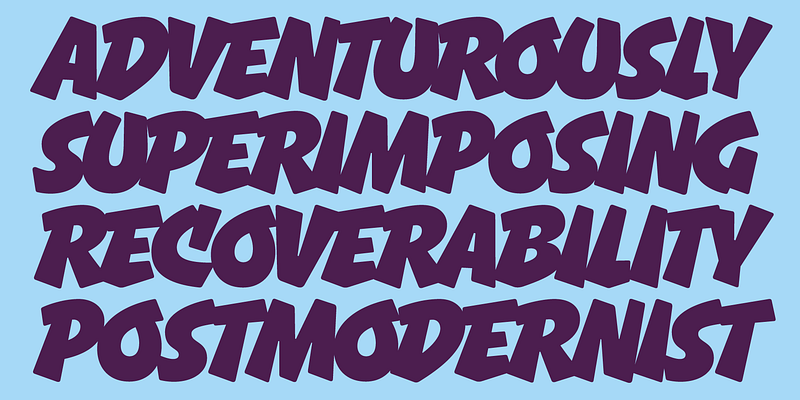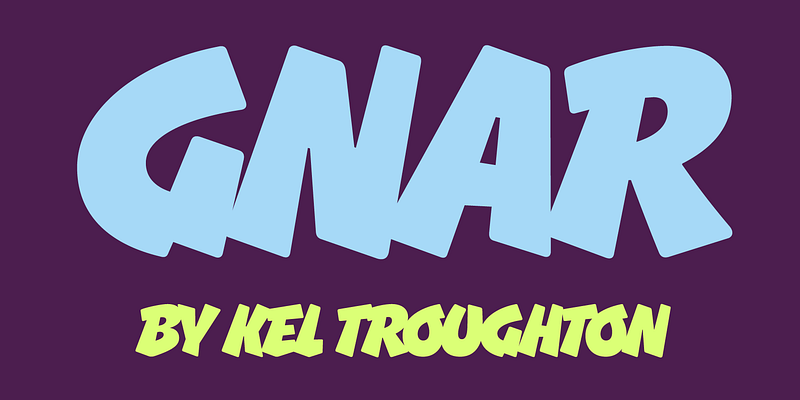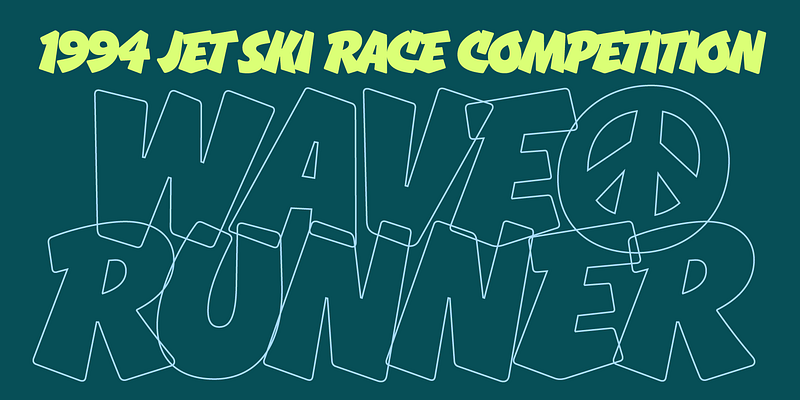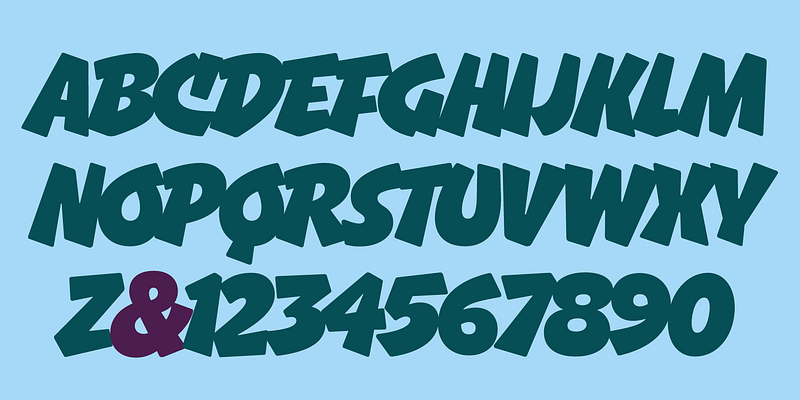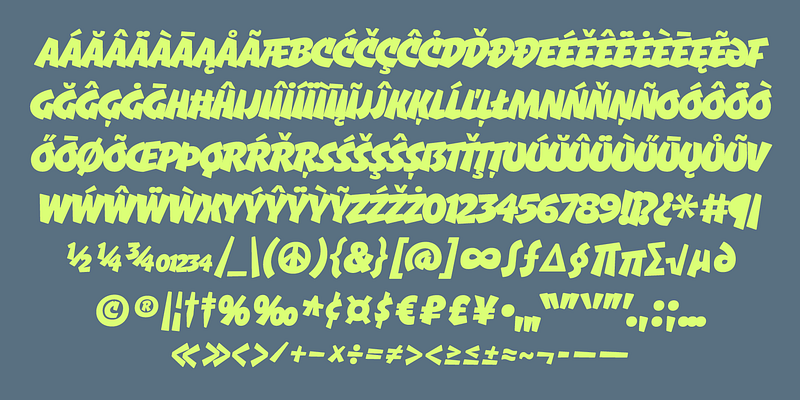
Gnar is a bold and bottom-heavy display typeface. Its forms are influenced by the casual capitals of American sign painters, but Gnar gets its feeling from 1990s loud sports graphics. It experiments with intentional overlapping letters to maximize impact, even featuring some alternate letter shapes when needed. Try this heavy headliner for your next action/adventure movie poster, or monster truck graphic.